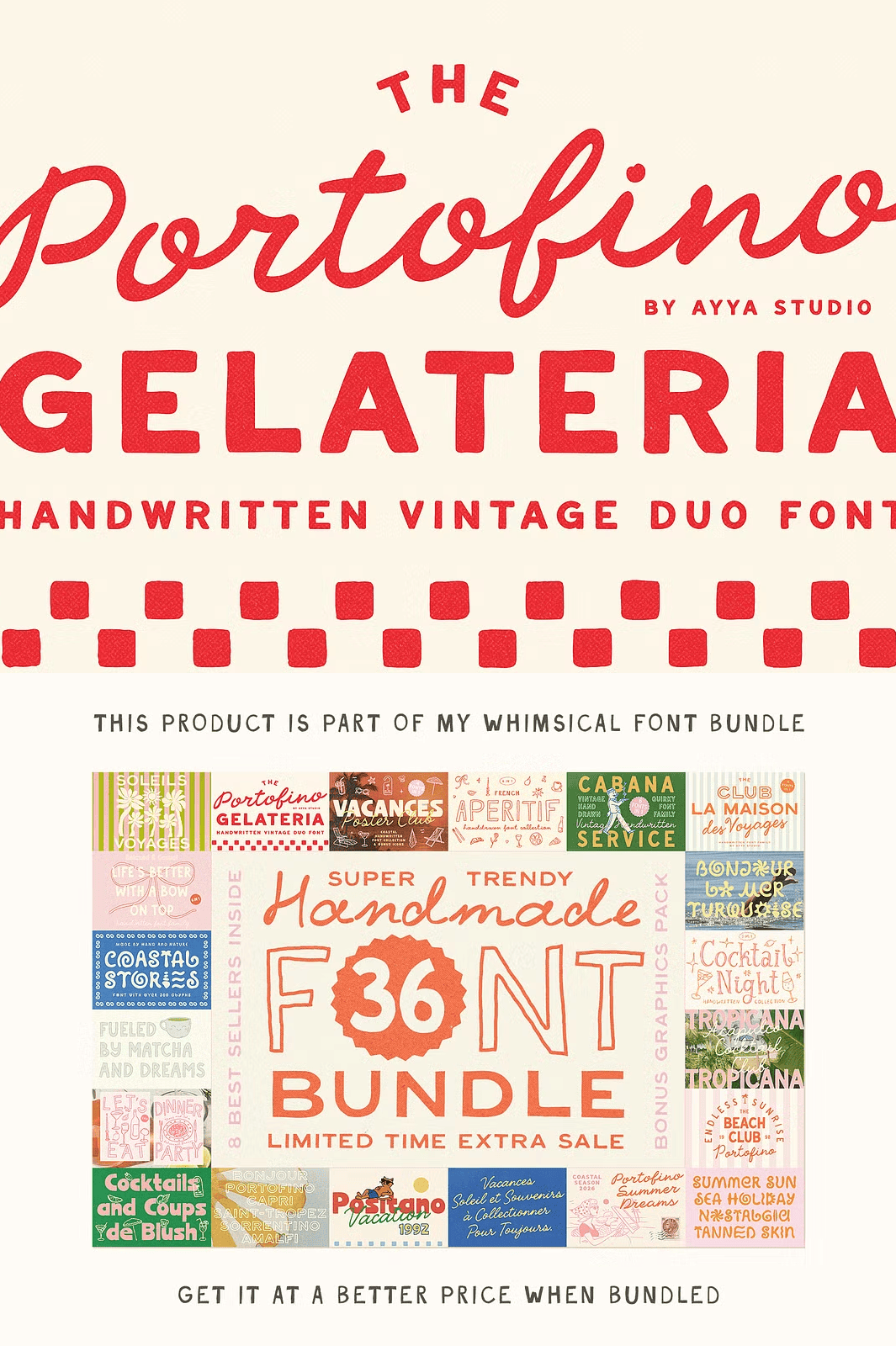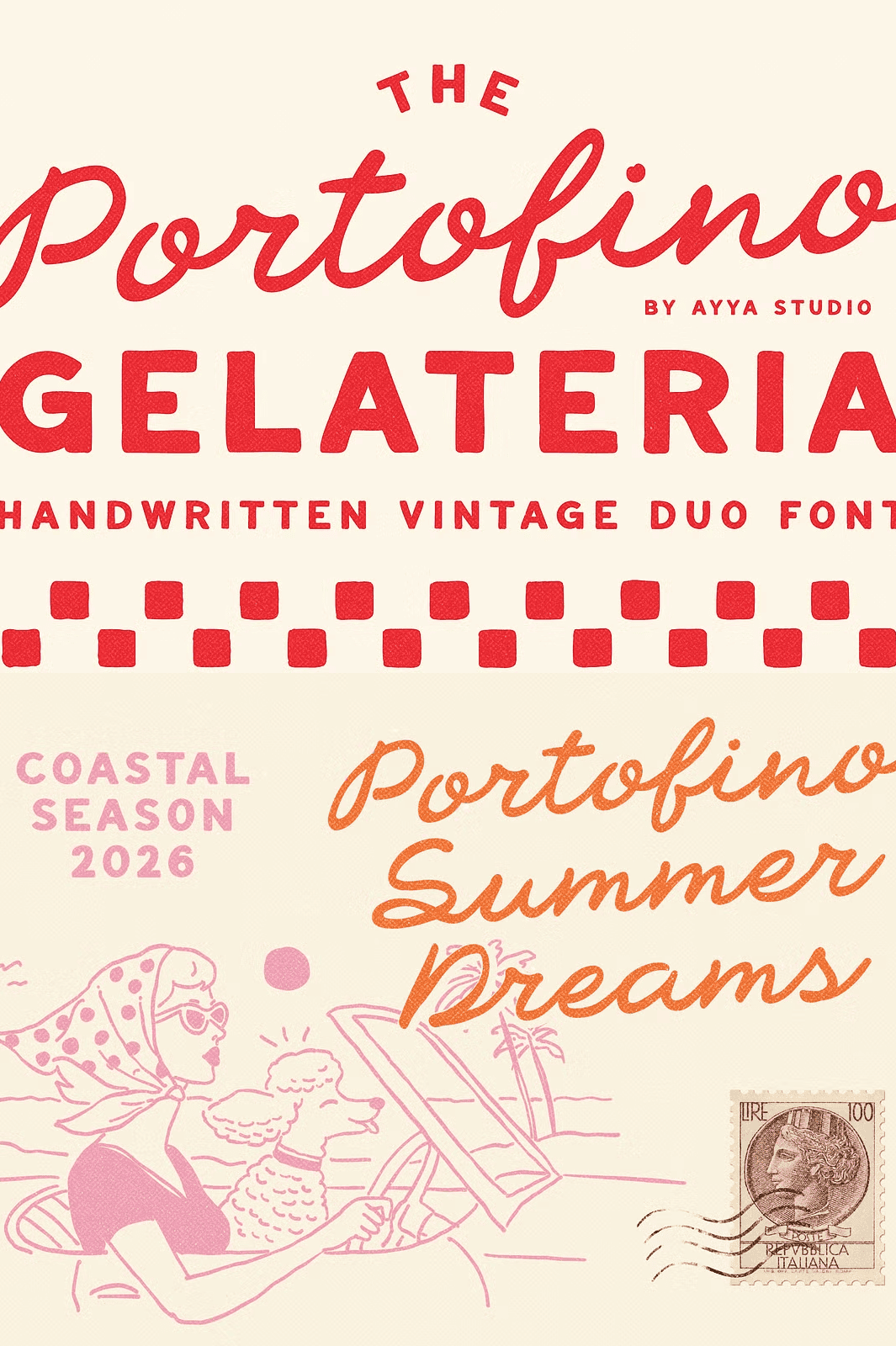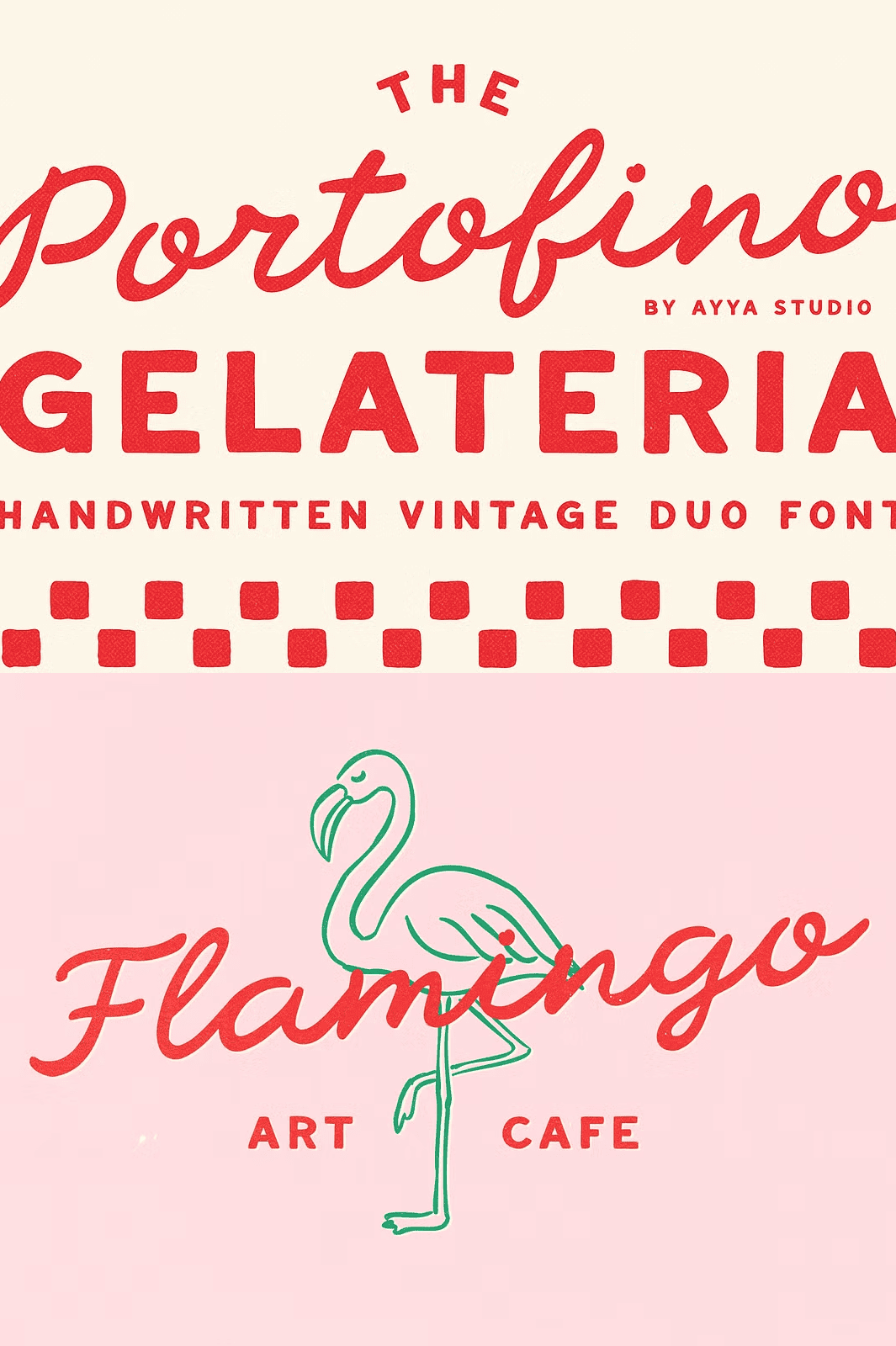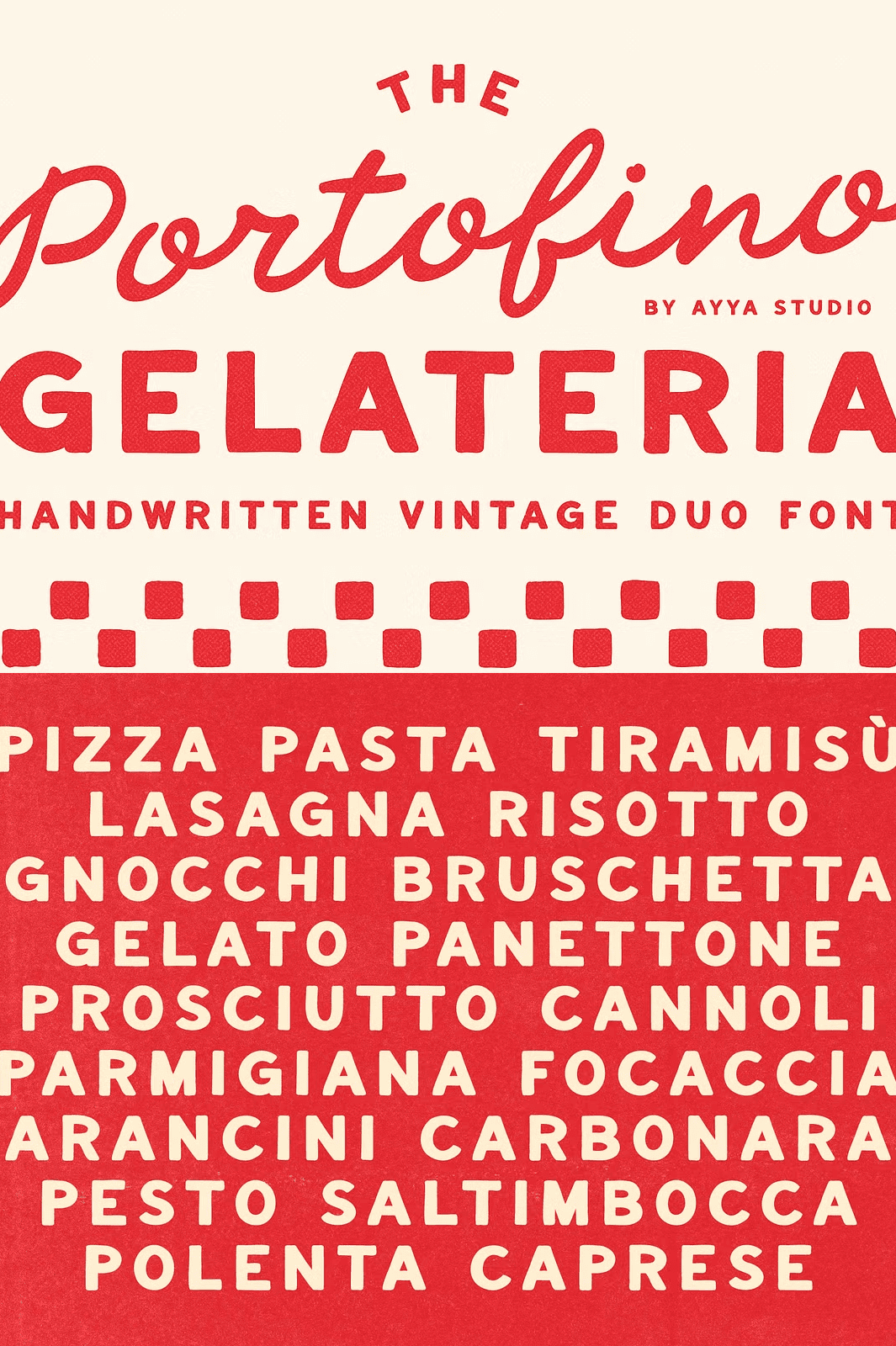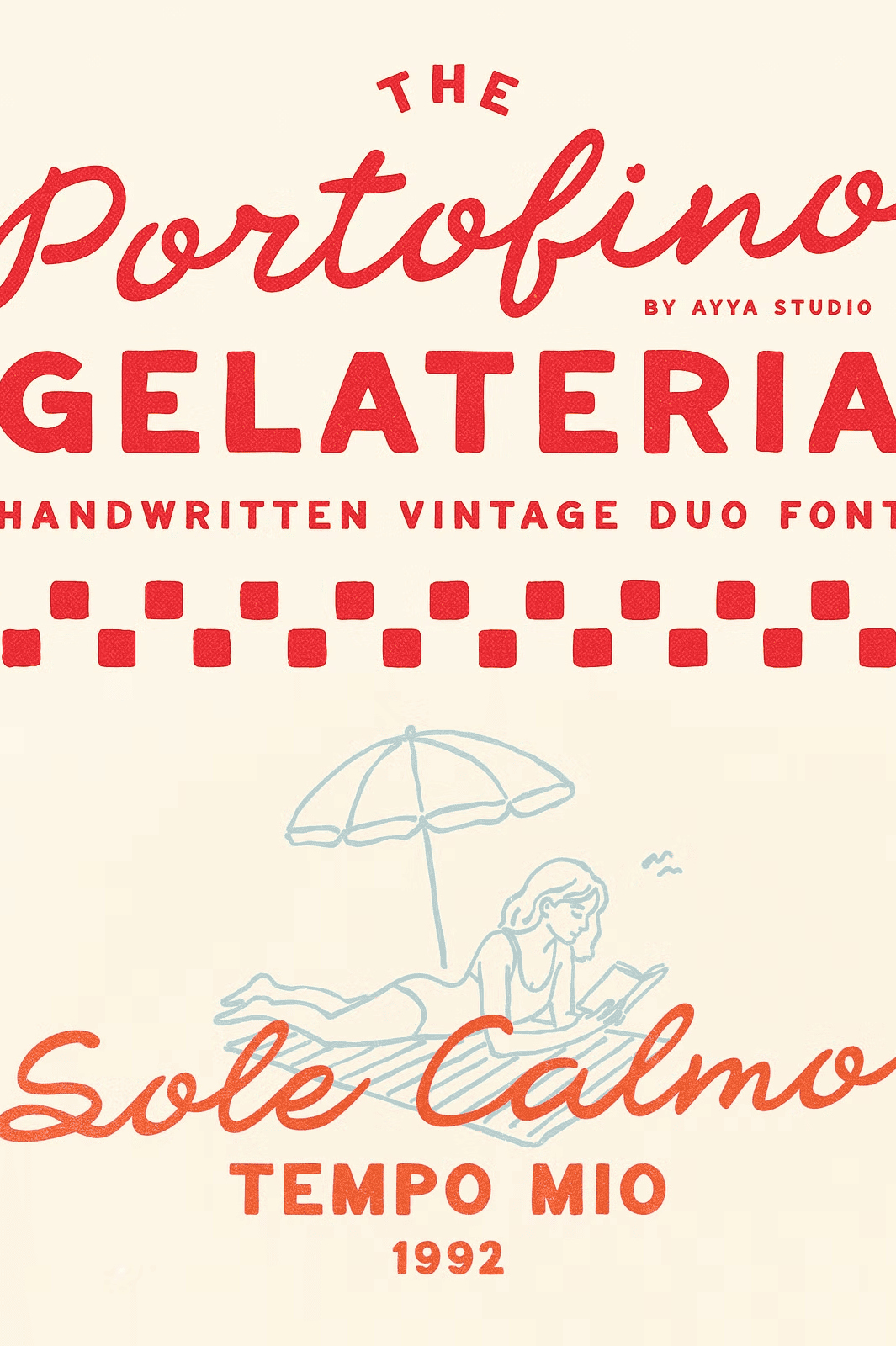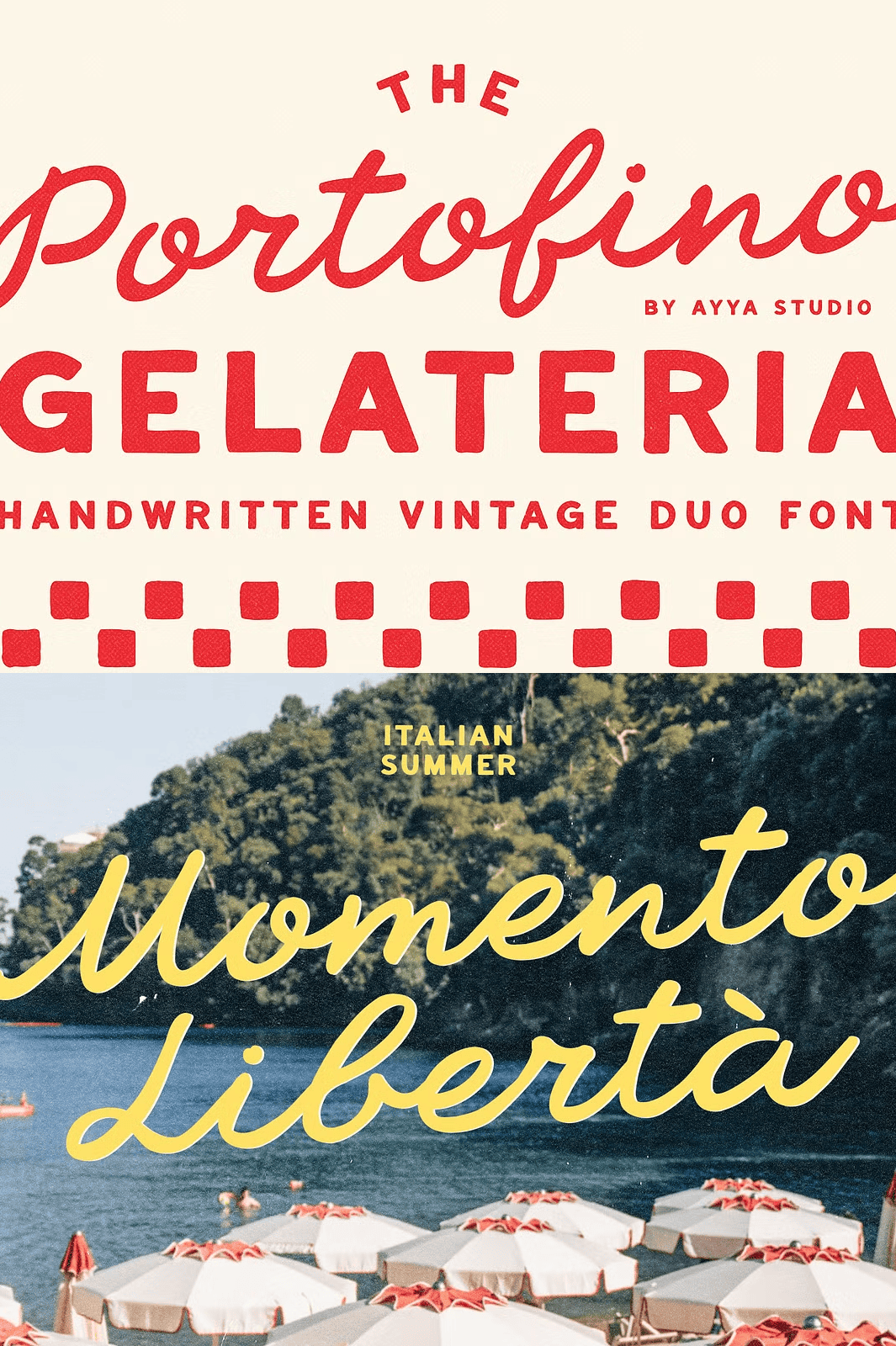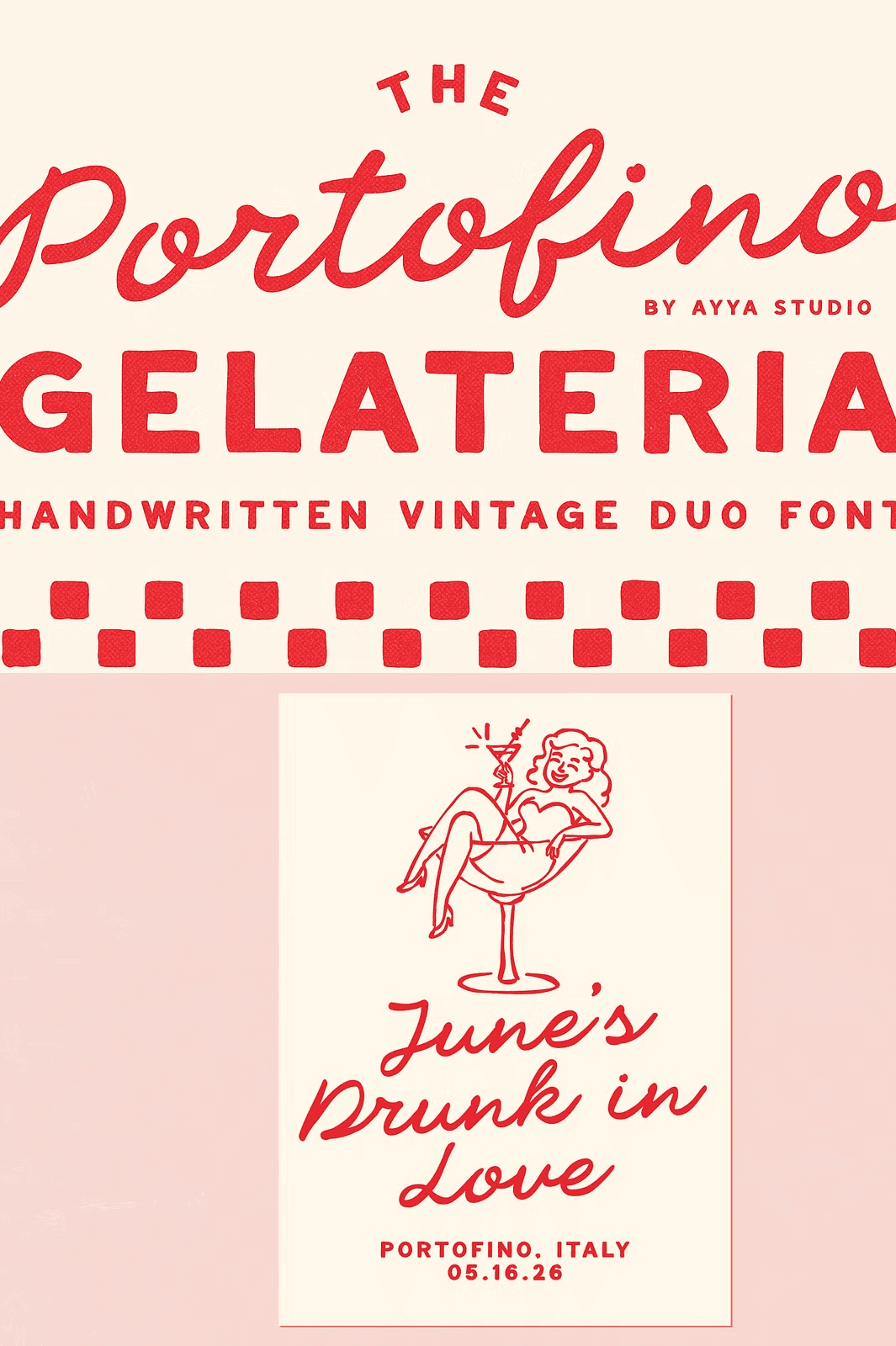
Step Into a Dreamy Italian Summer with Every Stroke
Let the breeze of Portofino carry you away. Portofino Gelateria is more than a fontit’s a feeling. Inspired by the golden glow of Mediterranean sun, the scent of fresh lemon granita, and the timeless hum of an old Italian melody, this vintage font duo brings the spirit of a seaside café straight to your design.
Crafted with hand-drawn precision, every curve and stroke feels alive imperfect, warm, and full of character. This isn’t digitized perfection; it’s the real deal. Authentic, heartfelt, and bursting with soulful charm, this duo is designed for creators who value emotion, authenticity, and the beauty of imperfection.
Two Fonts, One Irresistible Story: Script and Caps
Portofino Gelateria is a dynamic duo:
– **Portofino Gelateria Script** — A lively, expressive handwritten script that dances across the page. Its flowing lines, varied stroke weights, and natural ligatures make it ideal for romantic titles, invitations, and editorial headers.
– **Portofino Gelateria Caps** — A soft, slightly naive sans-serif with a hand-crafted, rustic elegance. Perfect for pairing with the script, it grounds the composition with warmth and clarity.
Together, they create a visual harmony that tells a story one of summer days, gelato in a paper cup, and the quiet joy of living in the moment.
Perfect for Branding That Feels Real — Not Just Designed
This font duo is made for projects that demand authenticity:
– 🎉 Wedding invitations with a nostalgic, Italian countryside vibe
– 🍦 Packaging for artisanal ice cream, gelaterias, and gourmet food brands
– 📸 Retro postcards, travel brochures, and tourism branding
– 🖊️ Editorial titles, magazine covers, and fashion spreads with a vintage twist
– 🏷️ Small business logos for boutiques, cafes, and lifestyle brands seeking a human touch
When you use Portofino Gelateria, you’re not just selecting a font you’re choosing a mood, a memory, a feeling. Every design becomes a piece of art that speaks to the heart.
Unleash Creative Freedom with 100% Hand-Drawn Details
These fonts are fully hand-drawn, which means:
– Natural inconsistencies that give character and humanity to your text
– Unique swashes, variations, and irregular line weights that no digital preset can replicate
– A one-of-a-kind feel that instantly elevates your work from generic to unforgettable
Each character was drawn with thought, care, and passion crafted from the heart of Italian inspiration.
Don’t just write tell a story. Don’t just design make it unforgettable.
Bring to life the magic of Italy, the charm of old posters, the warmth of a gelato stand at sunset. Let every letter speak of sun, sea, and soul.